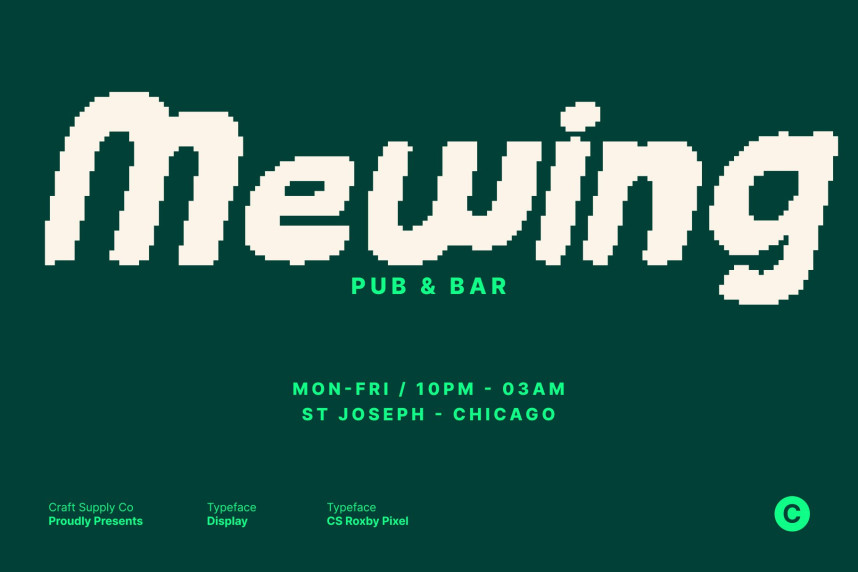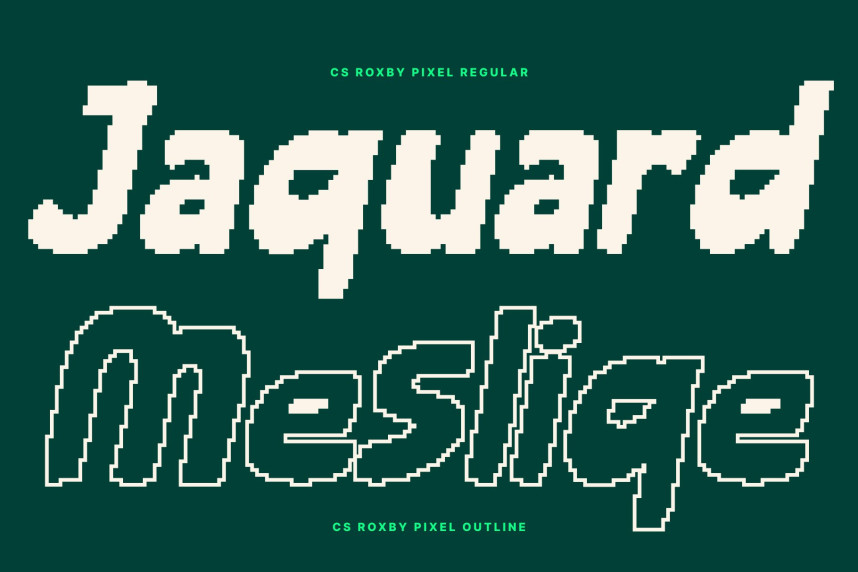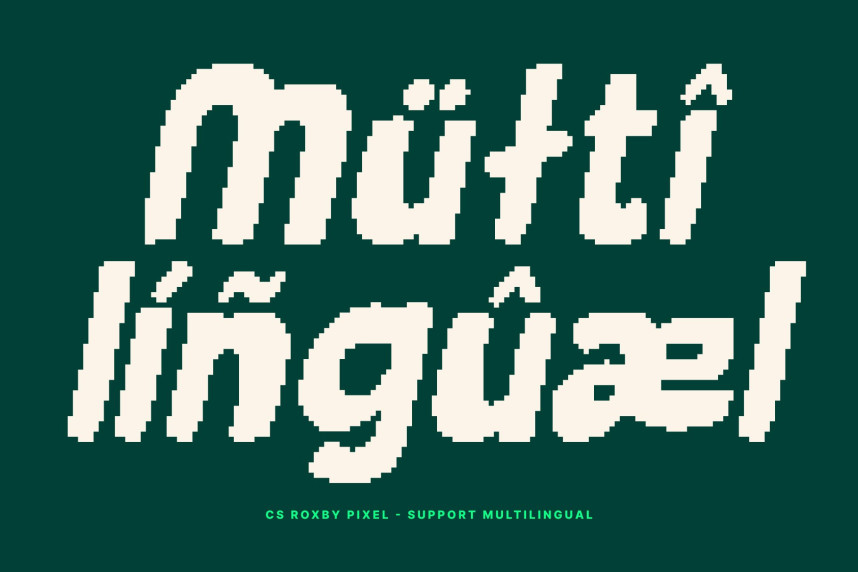
CS Roxby Pixel Font
CS Roxby Pixel Font – Playful Handwritten Cartoon Font with Childlike Charm Hand-Drawn Pixel Style with Expressive Personality. This is a playful handwritten font inspired by childlike doodles and cartoon-style lettering, enhanced with a subtle pixel influence. Its irregular, hand-drawn strokes give each character a spontaneous and lively feel, creating an authentic handcrafted look that feels warm, fun, and full of personality.